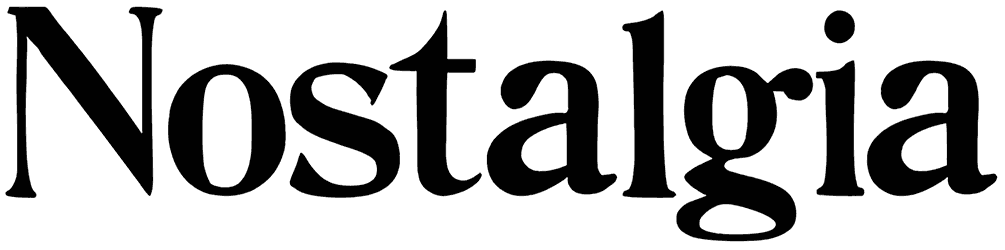
Nostalgia Font
Never underestimate the consequence of the audience’s expectations, they count on professional graphic designers to test a captivating serif font like Nostalgia in visual content including product packaging, invitations, labels, and posters to stay ahead of the pack promptly.
Besides all its godsends, this newspaper font can give off a sense of professionalism, confidence, respect, and reliability to your creative designs. If the amusing nostalgic design appeals to you, dig out our website and see over all the serif fonts.